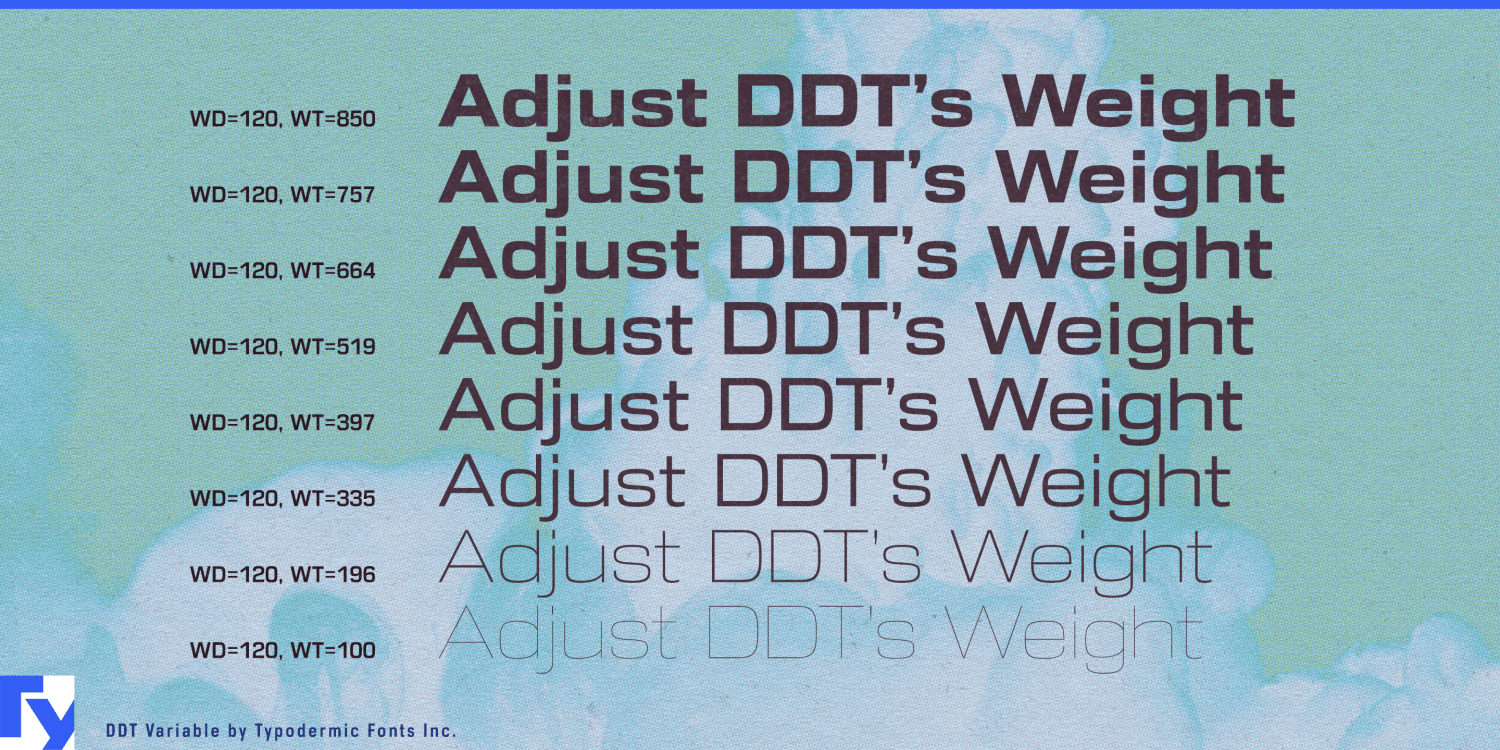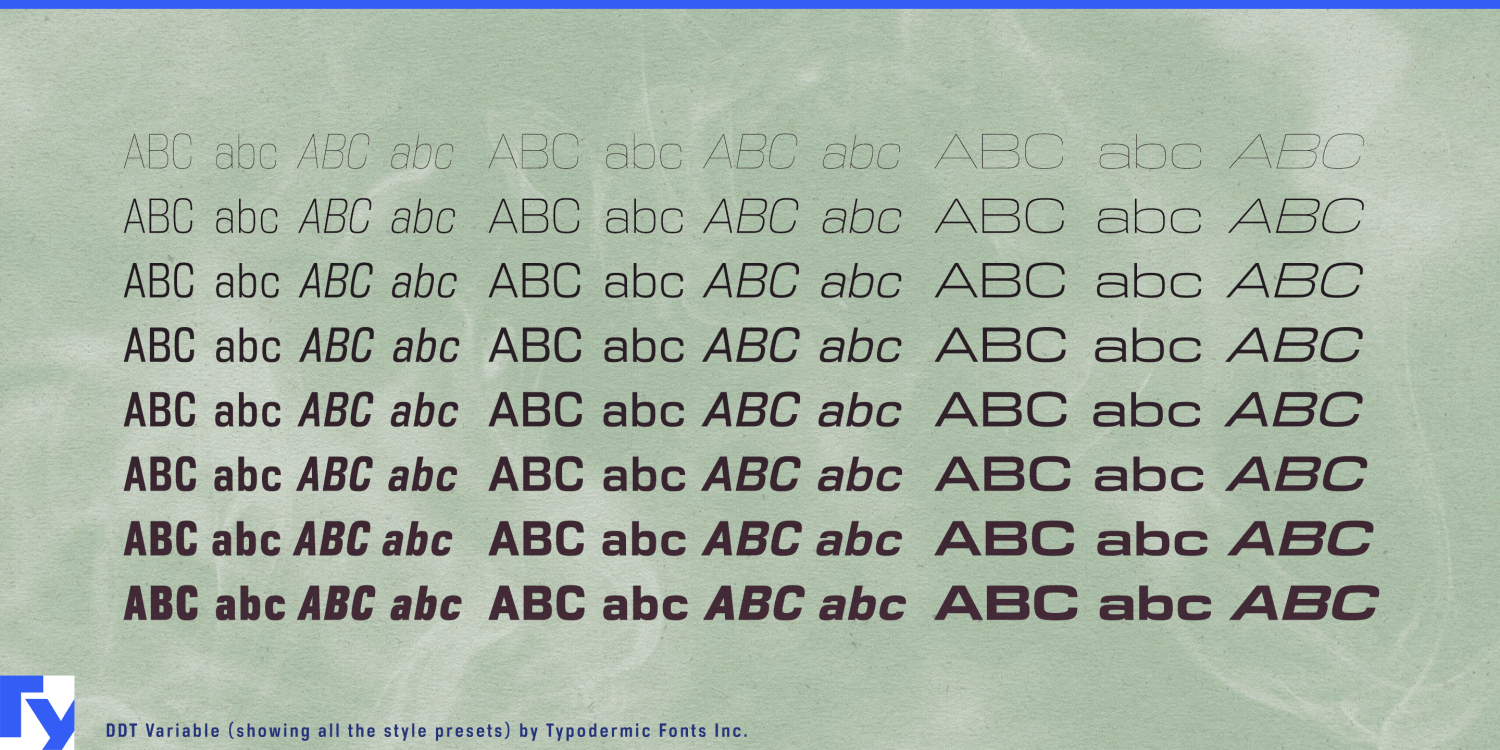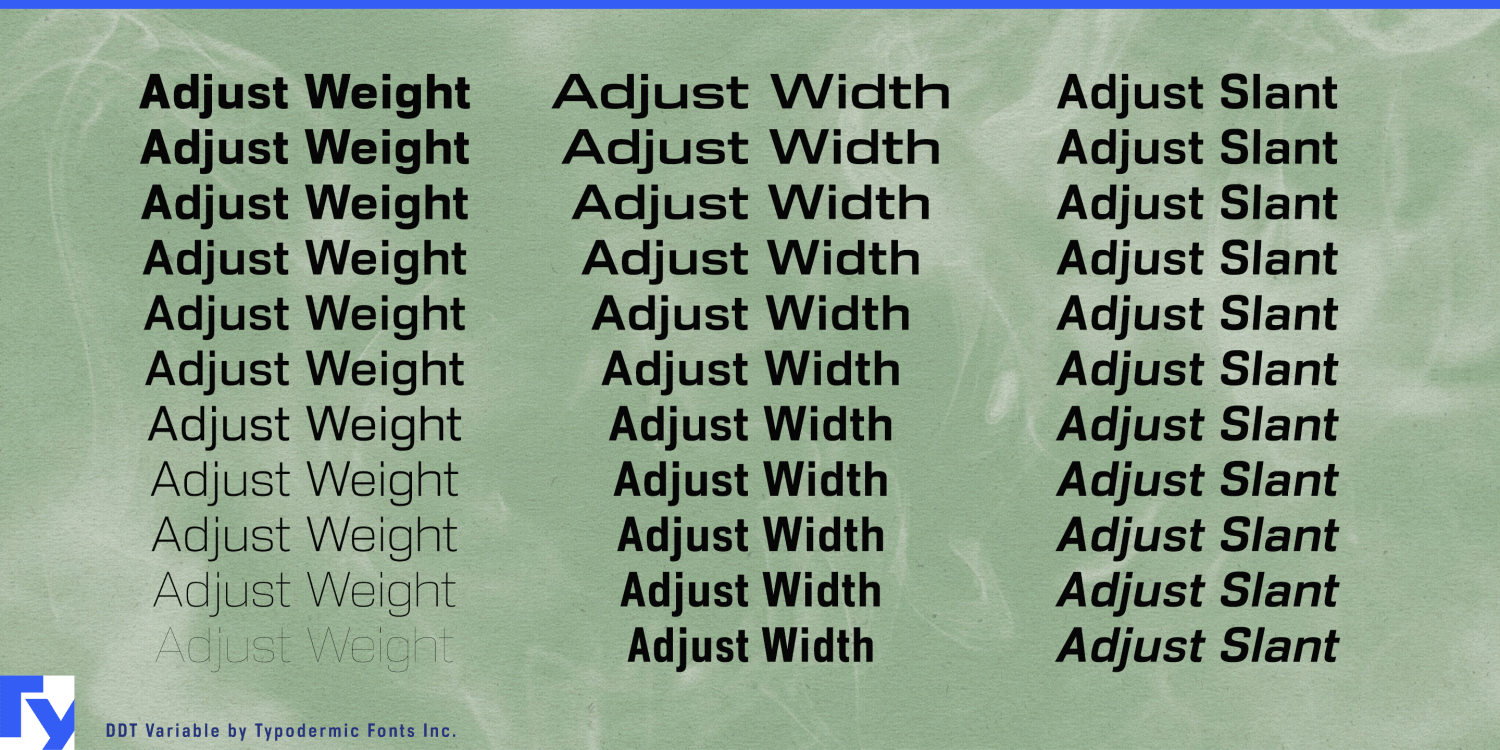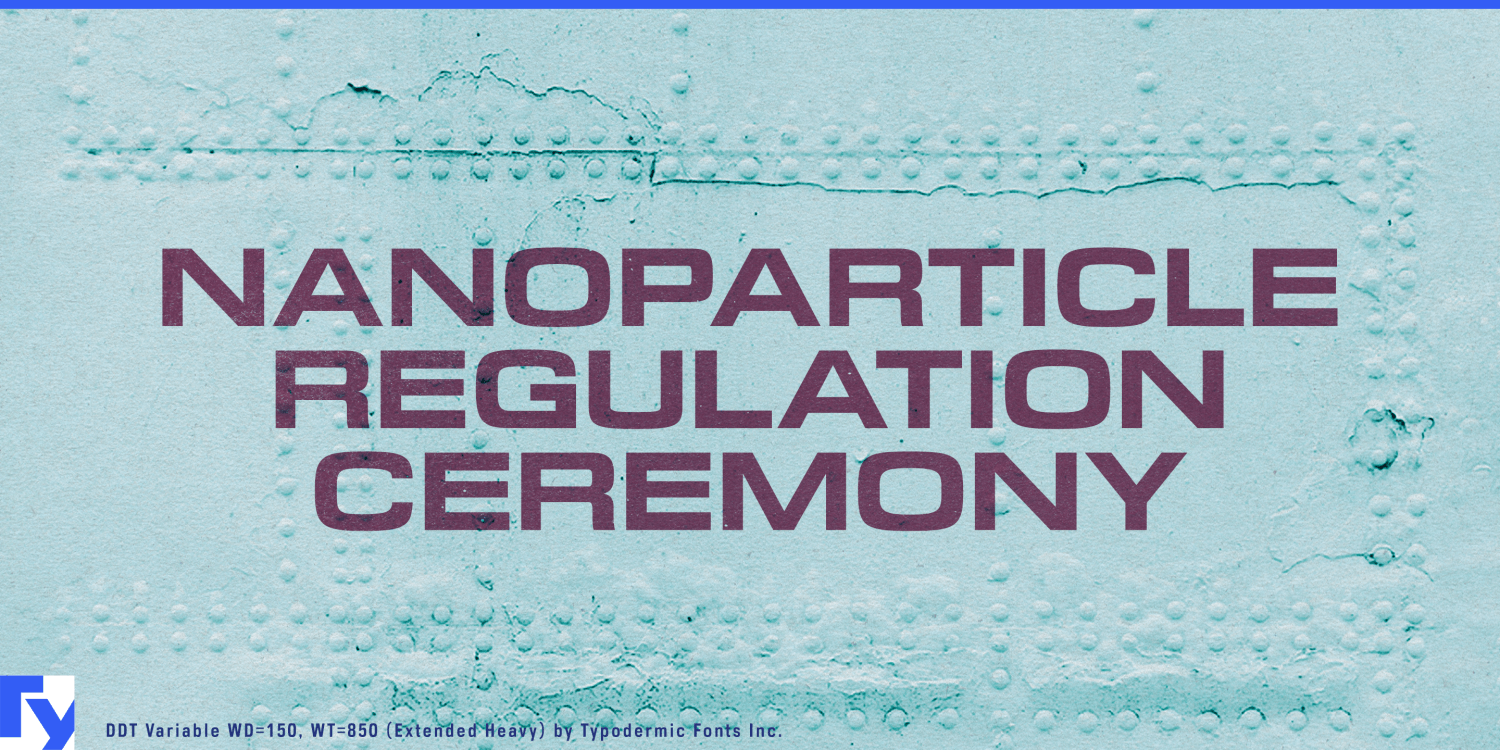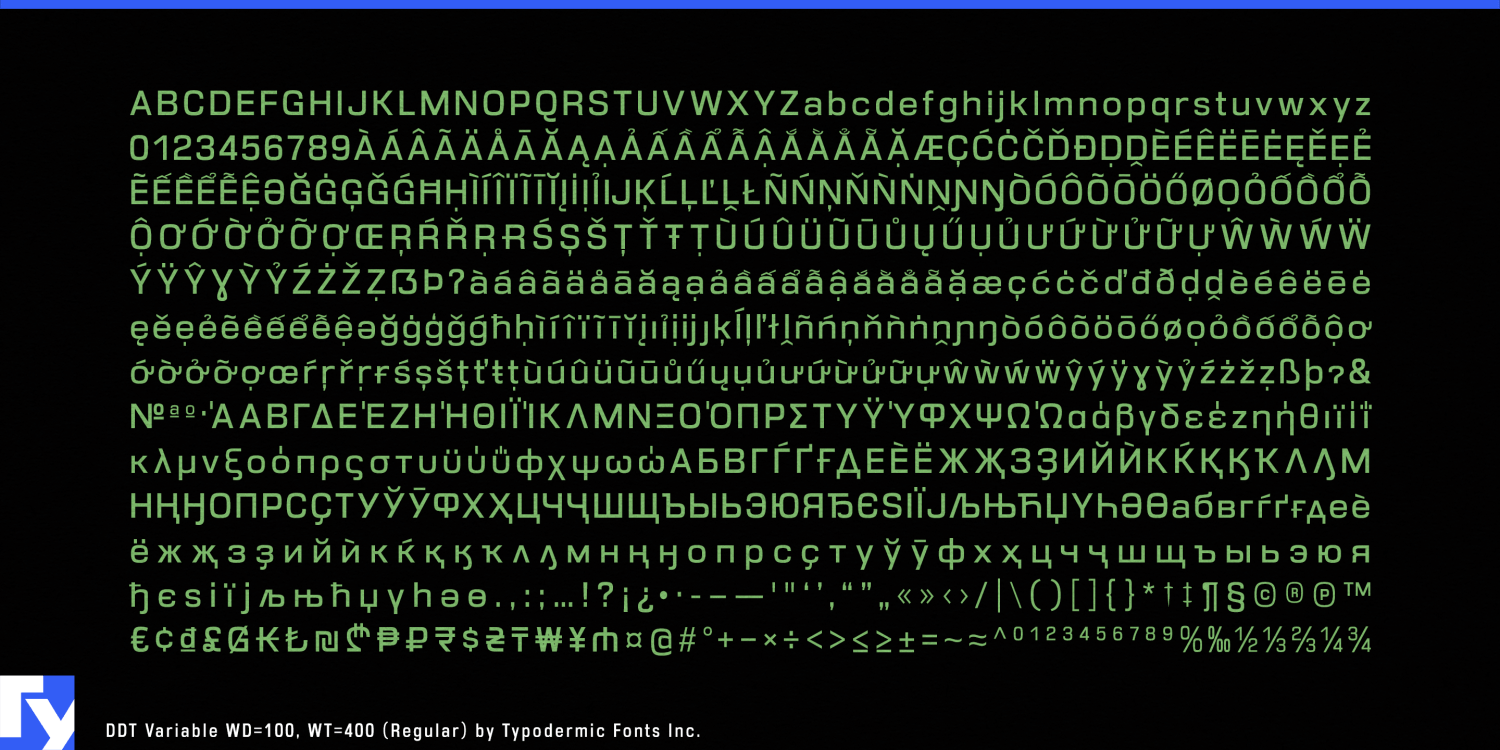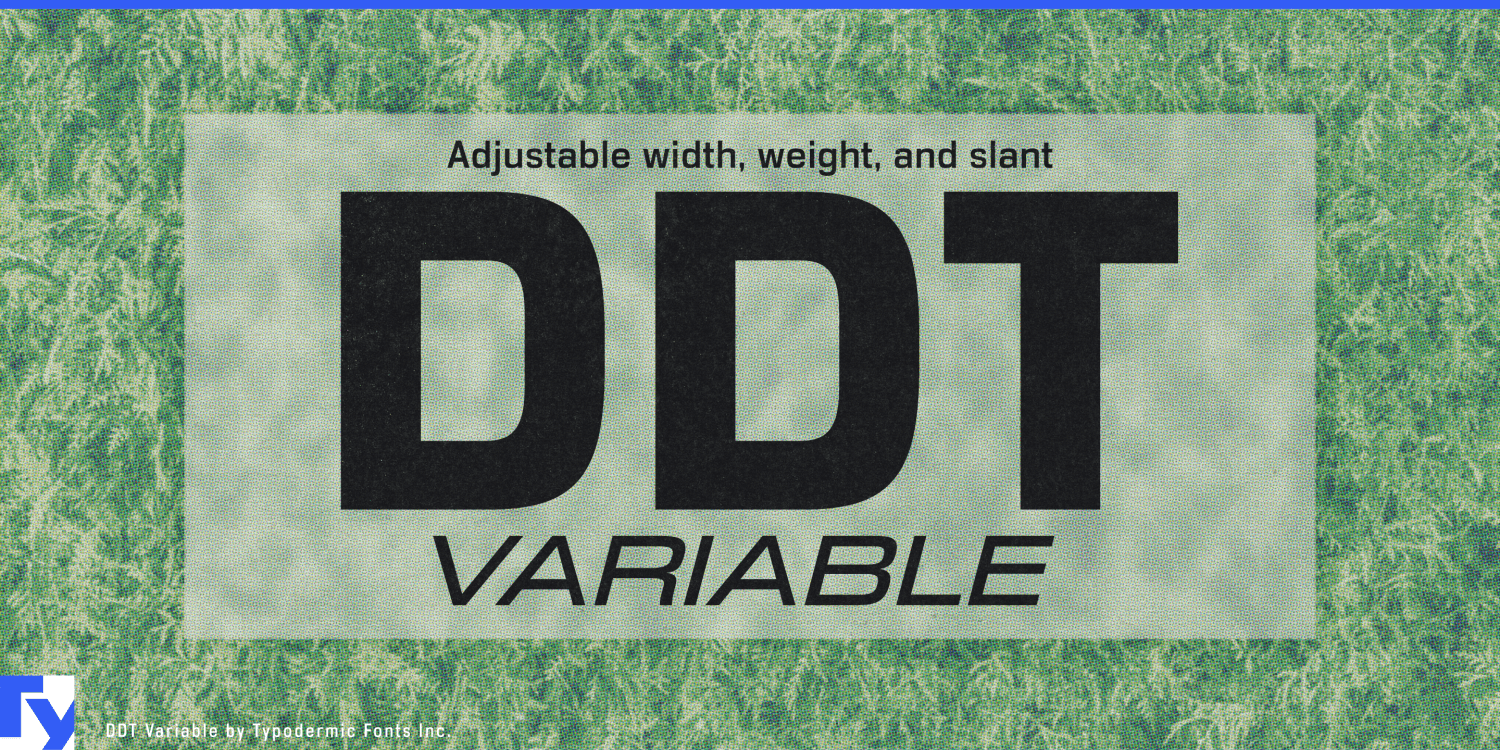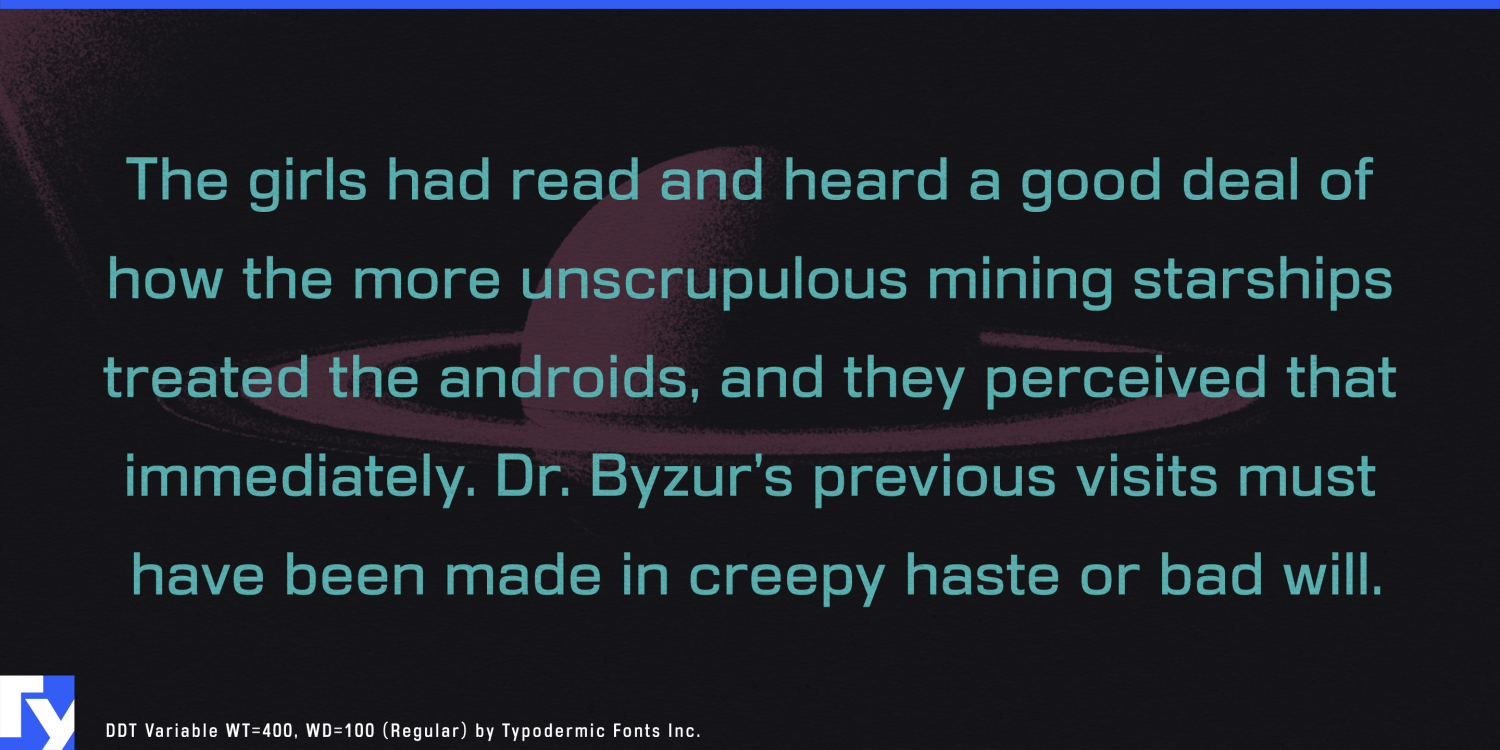
DDT Variable
About DDT Variable
Introducing DDT Variable, the epitome of modern typography that exudes professionalism and authority with unprecedented flexibility. Drawing inspiration from time-tested classics like Univers and Eurostile, DDT Variable's unique superelliptical shape…